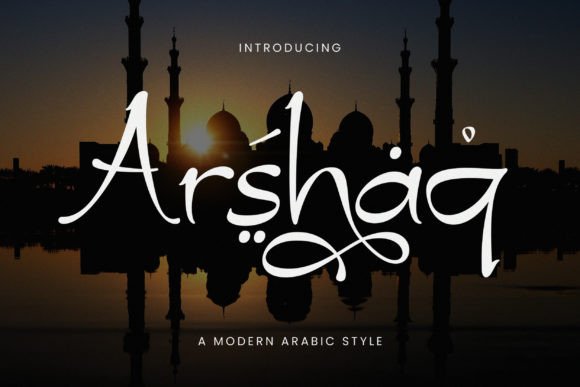
Immerse yourself in the world of authentic Arabic calligraphy with Arshaq Font, an exquisite display font that brings elegance and beauty to your designs. Each letter, meticulously crafted by the talented team at Flawless And Co., showcases the essence of traditional handwritten scripts, evoking a sense of cultural heritage and artistic mastery.
Arshaq Font is not just a font; it's an experience that captures the essence of Arabic artistry. Its graceful curves and intricate details dance across the page, creating visually stunning compositions that resonate with depth and emotion. Whether you're a seasoned designer or a creative enthusiast, Arshaq Font will elevate your projects to new heights of sophistication and charm.
Unleash your creativity and explore the endless possibilities of Arshaq Font. Design logos that command attention, headlines that captivate, and posters that transport viewers to a realm of artistic expression. Its versatility shines in titles, branding projects, invitations, and any design where authenticity and elegance are paramount.
With Arshaq Font, you'll discover the power of storytelling through typography. Craft invitations that evoke the rich traditions of Arabic culture, social media posts that resonate with emotional depth, and branding materials that reflect a unique and unforgettable identity.
Embrace the beauty of Arabic calligraphy and let Arshaq Font inspire your creative journey. Immerse yourself in the world of seamless Arabic type that flows effortlessly from one character to another, creating a symphony of visual harmony. Each letterform embodies the essence of artistic expression, inviting you to explore the depths of your imagination.